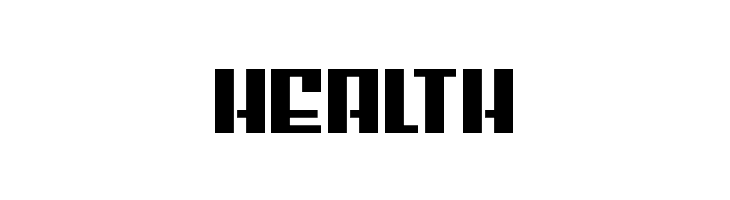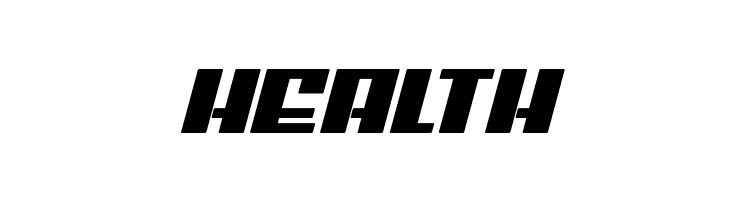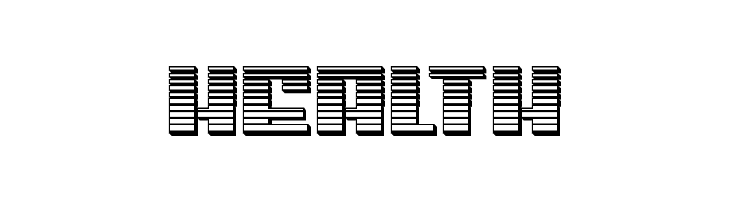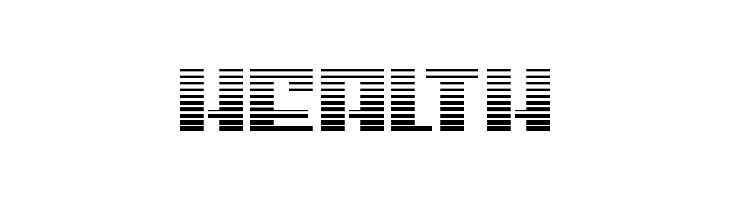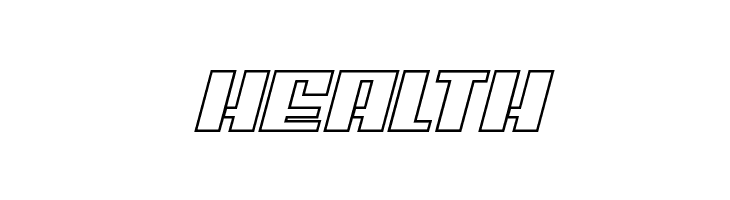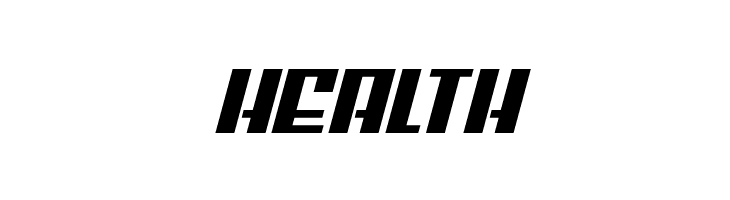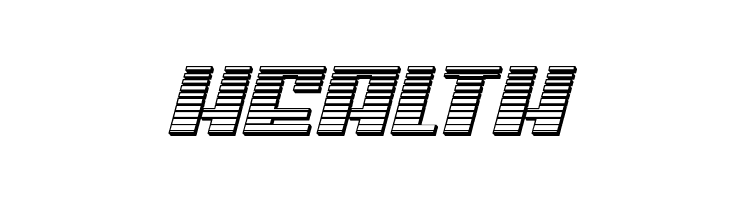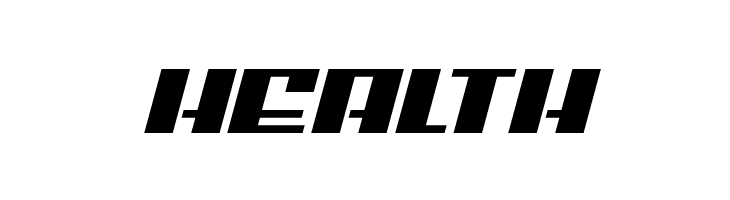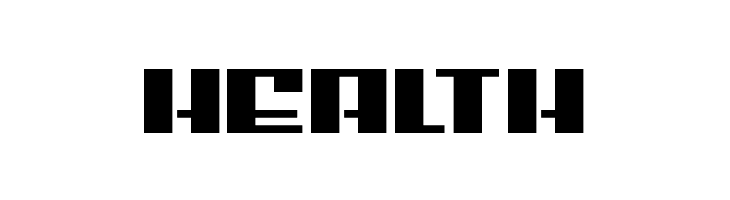
• American Grain Bold Italic
A bold, italicized font with angular, dynamic characters and a modern style.
• American Grain Bold Outl Itali
A bold, outlined, italic font with a geometric and modern style.
• American Grain Bold Outline
A bold, geometric outline font with a modern, industrial feel.
• American Grain Chrome
A bold, geometric font with a three-dimensional, retro-futuristic style.
• American Grain Chrome Italic
A bold, italicized font with a chrome-like, futuristic design.
• American Grain Condensed
A bold, condensed, and geometric font with a strong industrial feel.
• American Grain Condensed Ital
A bold, condensed, and italic font with a modern, geometric style.
• American Grain Expanded
A bold, geometric font with an expanded, blocky style and modern aesthetic.
• American Grain Expanded Italic
A bold, expanded, and italicized font with a dynamic and futuristic style.
• American Grain Gradient
A modern, striped font with a gradient effect and geometric shapes.